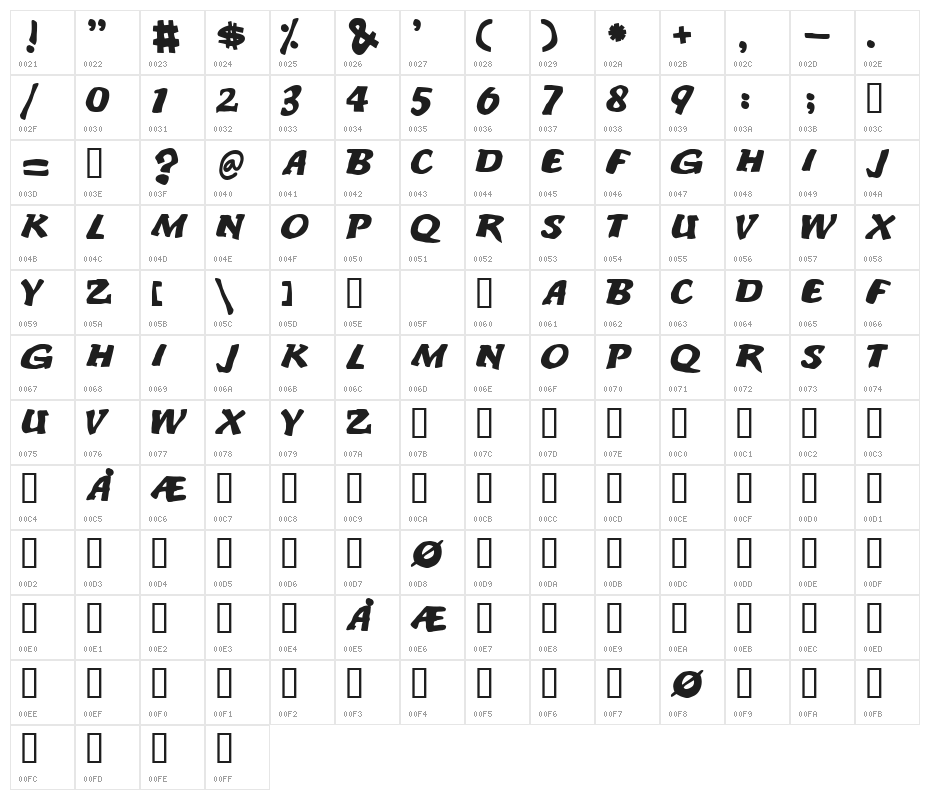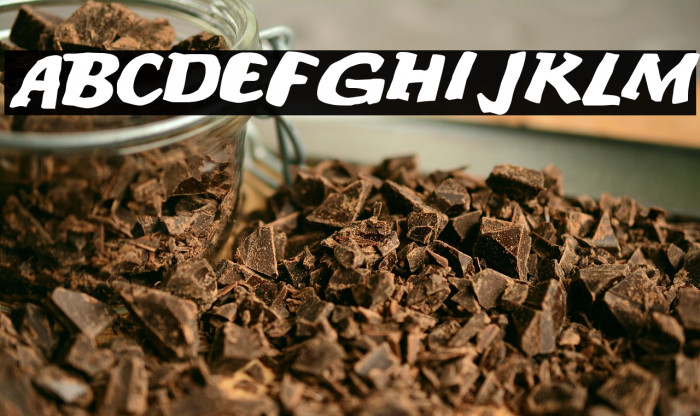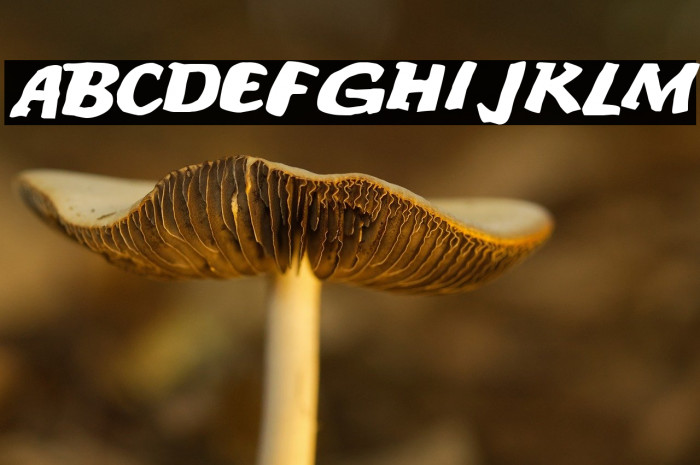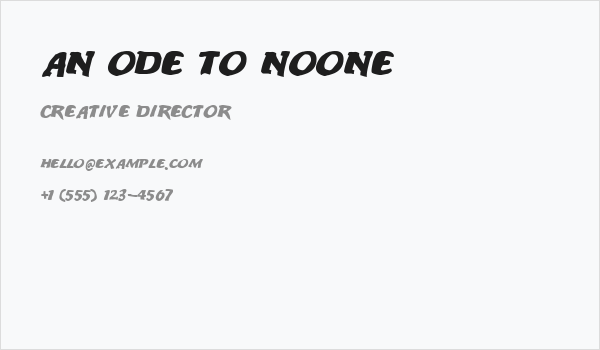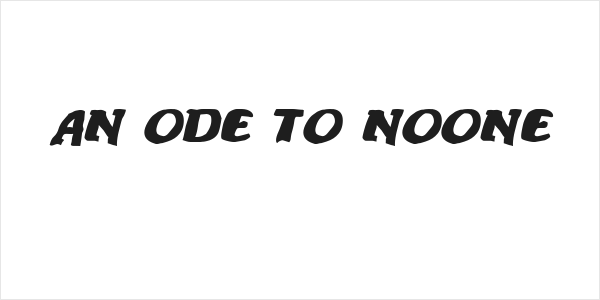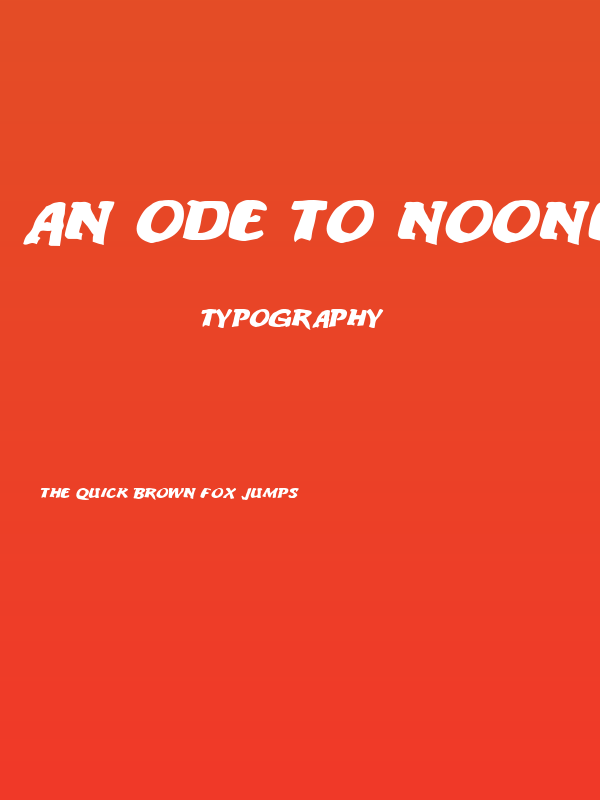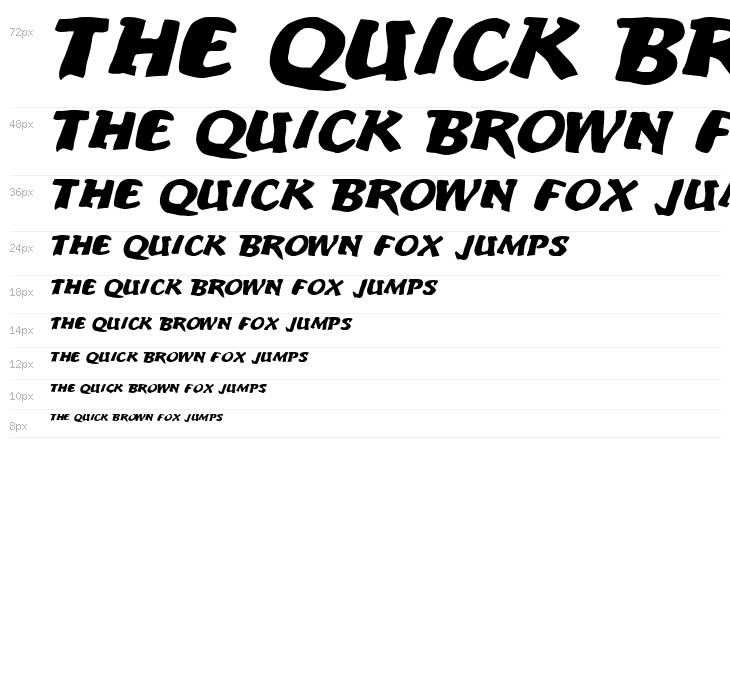
An ode to noone Font
An ode to noone Description
This font features bold, dynamic strokes with a slightly italicized slant, giving it a sense of movement and energy. The characters are thick and robust, with a playful yet assertive style. The uppercase letters are particularly striking, with exaggerated curves and angles that create a sense of drama. The lowercase letters maintain this boldness, offering a consistent visual weight throughout. Numbers and special characters are equally bold, ensuring readability and impact. The overall design is reminiscent of hand-painted signage, making it ideal for projects that require a touch of vintage flair.
| Proposed Projects | Ideal for posters, signage, branding projects, and any design needing a bold, energetic typeface. |